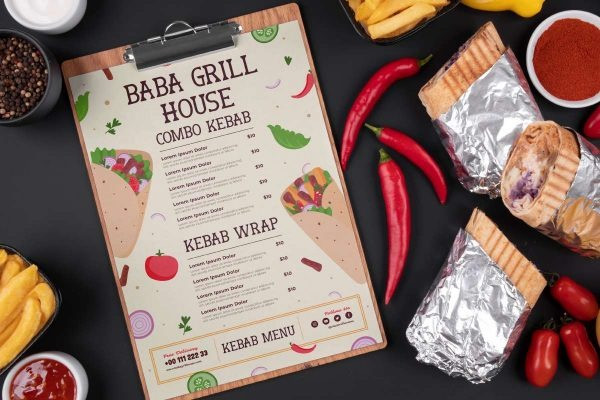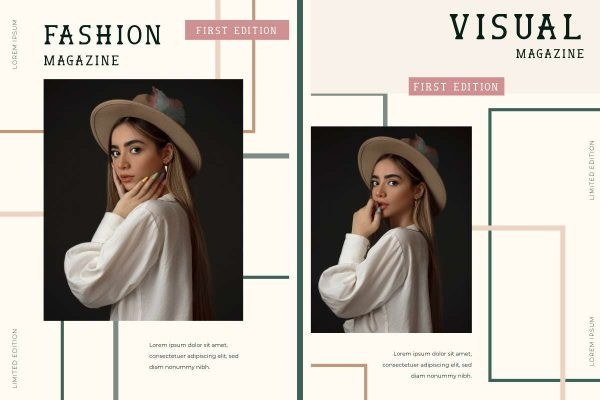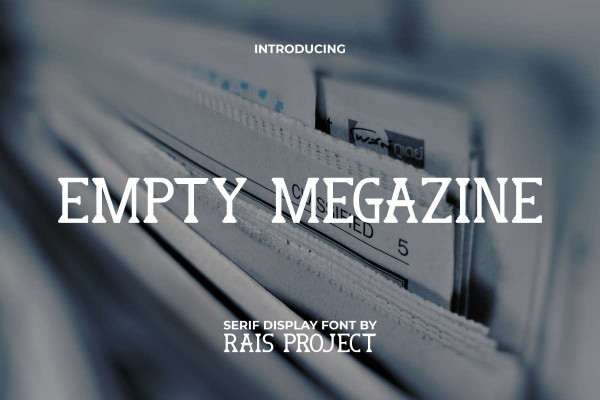
Empty Megazine Font
Empty Megazine Font is a retro casual serif display font with bold embellishments such as the bottom of the pillars on each letter! It will be good for any design, such as brand logo, business card, cover, custom design, invitation, label, menu, poster, product packaging, quote, signage, web page, and more!
Empty Megazine Font includes a full set of Uppercase and Lowercase Letters, Numerals, and large range of punctuation. This sleek and minimalist font will be suitable for various industries, such as accessories, bakery & pastry, beauty product, café, fashion, jewelry, photography, printing, publishing, real estate, restaurant, wedding or event organizer, etc.